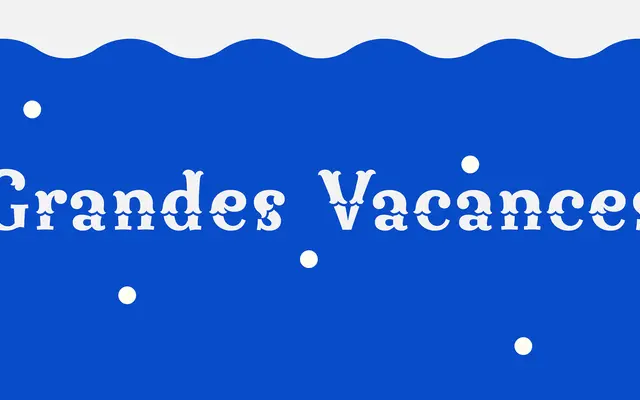
Grandes Vacances
A decorative Tuscan display face in the Wild West wood type tradition, described as charming and playful with bifurcated, ornamental serifs.
Grandes Vacances draws on the 19th-century Tuscan wood type tradition, with the bifurcated serifs and showbill character typical of Western-style display printing. Dharma Type position it as one of the more distinctive entries in the genre, emphasising a sweetness and charm that sets it apart from harder-edged western display faces. Suited to posters, packaging and branding that calls for a vintage, fairground or frontier flavour.
A decorative Tuscan display face in the Wild West wood type tradition, characterised by bifurcated serifs and ornamental letterforms typical of 19th-century showbill typography.